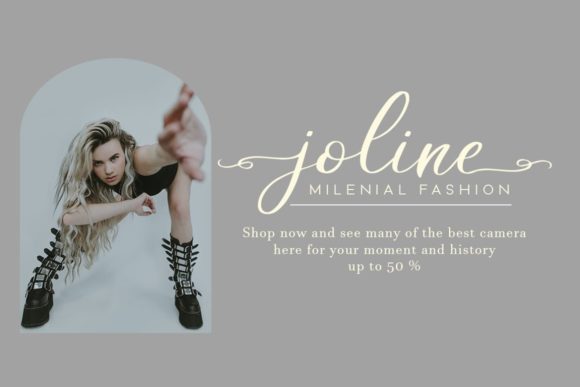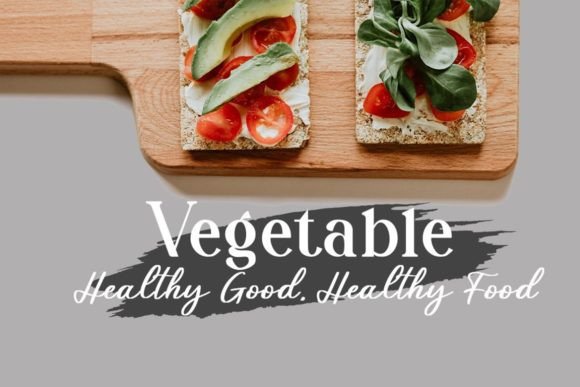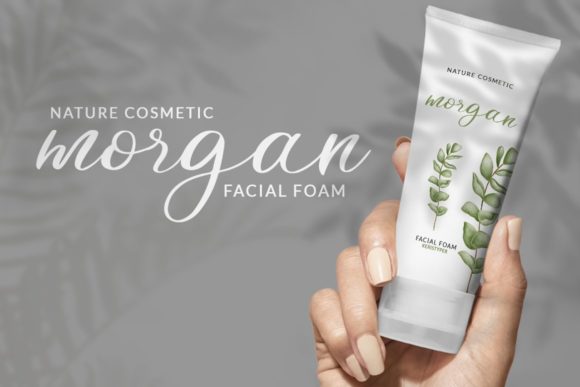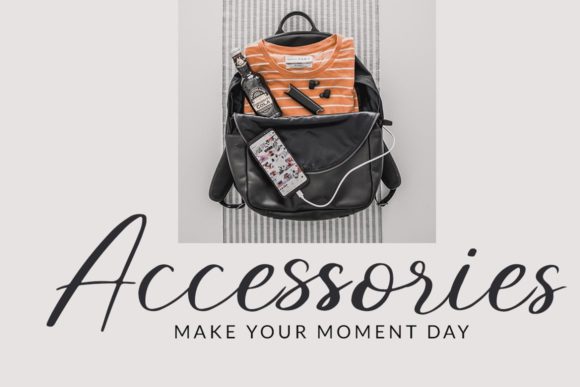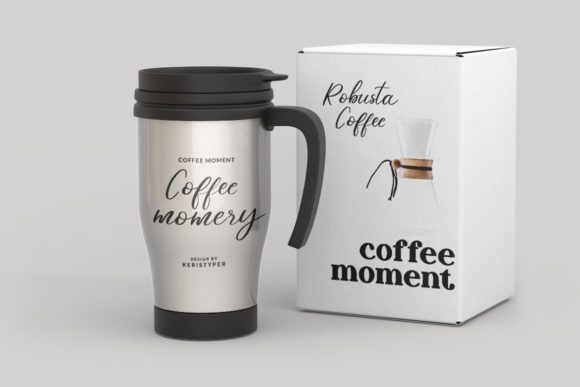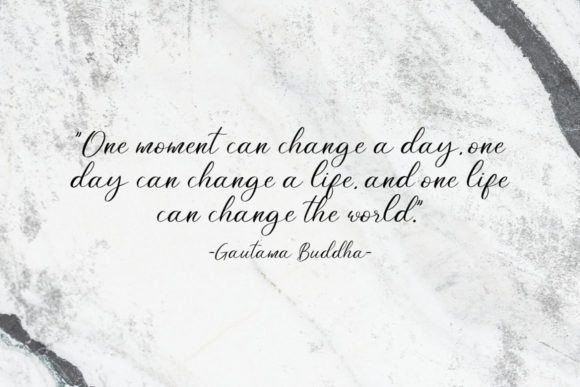
Introduction to Growming Font
As a designer, have you ever been in the middle of a creative project, staring at a blank page, searching for the perfect font to bring your vision to life? That’s exactly what happened to me when I stumbled upon the Growming Font. Its modern and unique script shape immediately caught my attention, and I knew I had to explore it further.
With its natural writing style and high-quality design, the Growming Font is a valuable resource for any designer looking to create stunning typographic designs. From branding and web design to editorial and prints, this font is perfect for crafting beautiful and eye-catching visuals. And the best part? It’s free to download, making it an accessible design resource for creatives of all levels.
Whether you’re working on a branding project or a romantic card, the Growming Font is sure to add a touch of elegance and sophistication to your design. Its transparent background and wide range of glyphs and ligatures make it a versatile and convenient tool for any creative project.
Key Features of Growming Font
- Includes 100+ unique characters, including letters, numbers, and symbols, perfect for creative projects and designs
- Designed to be highly legible, even at small font sizes, ensuring your message is conveyed clearly and effectively
Honest Review: Growming Font
I recently stumbled upon the Growming Font, and I must say it’s been a great addition to my design resources. As a designer, I’m always on the lookout for high-quality fonts that can elevate my creative projects.
What works well: ✨ The font’s unique design makes it perfect for creative projects that require a bit of whimsy. The transparent background also makes it easy to layer with other design elements.
What doesn’t work well: ⚠️ The font could benefit from more character variations. At times, I find myself limited by the lack of options for certain letters or symbols.
Overall impression: I’m thoroughly impressed with the Growming Font. It’s a great free resource that’s perfect for designers on a budget or those looking for a unique touch for their creative project. I highly recommend giving it a try.